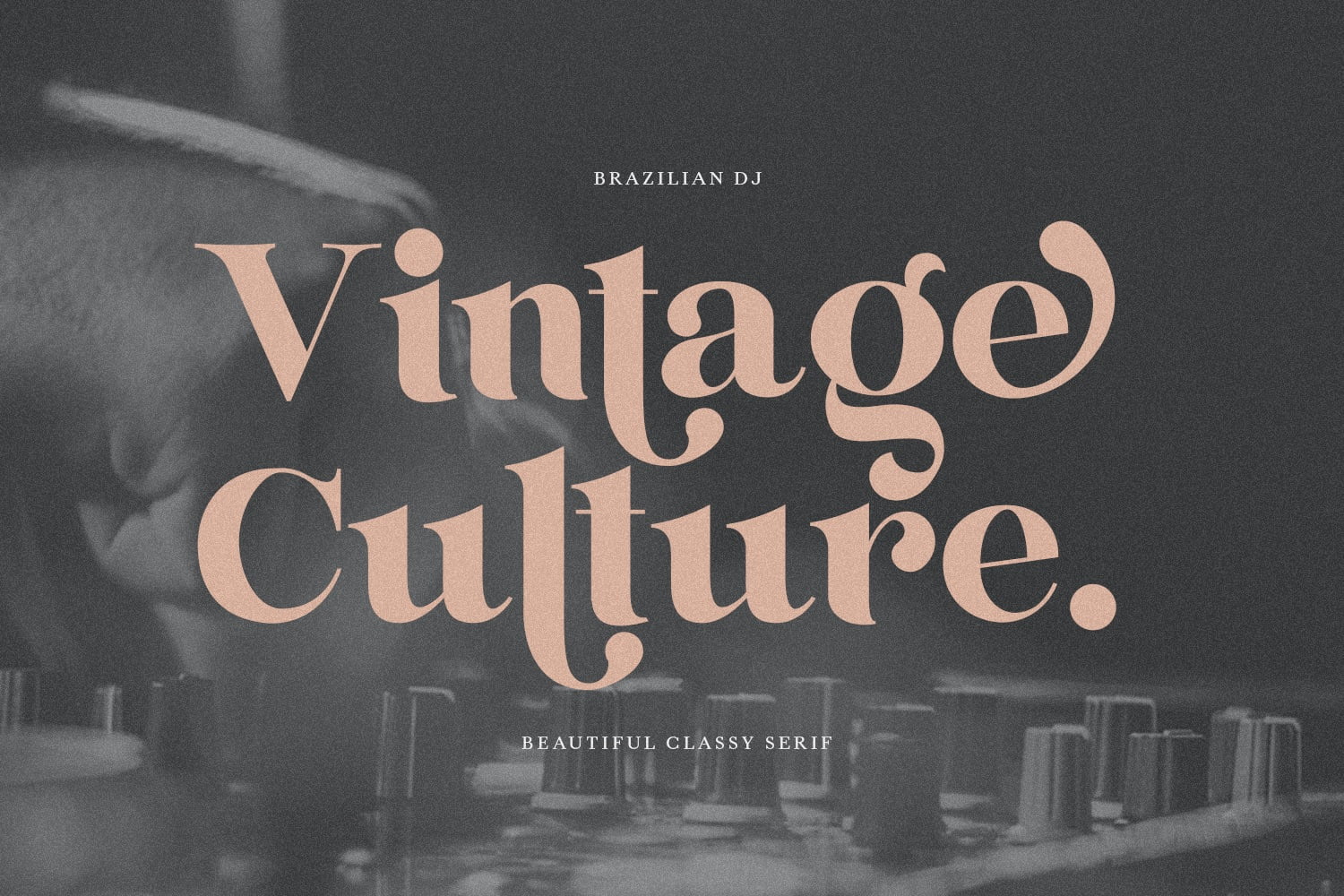
There are many different types of fonts, each with their own unique characteristics and uses. Some common font categories include serif, sans-serif, display, and script fonts. Serif fonts have small decorative lines or flourishes at the ends of characters, while sans-serif fonts do not. Display fonts are designed to be used at larger sizes, often for headlines or titles, while script fonts mimic the look of handwriting or calligraphy.
Fonts can be used in a variety of mediums, including print, web design, and digital media. Choosing the right font is an important part of the design process, as it can impact the readability, tone, and overall aesthetic of the message being conveyed.